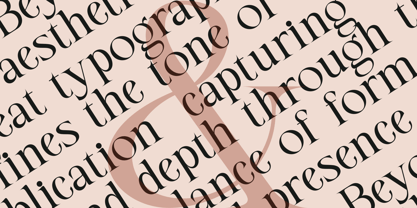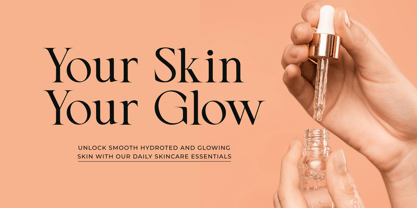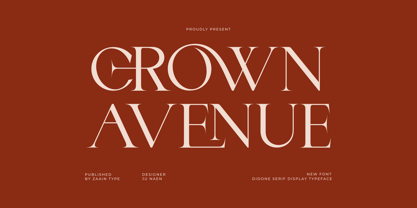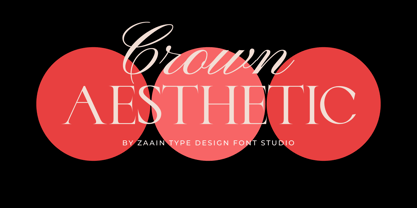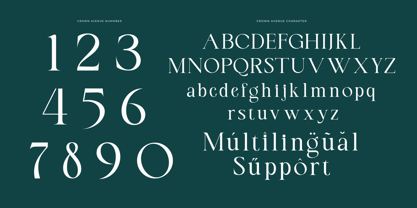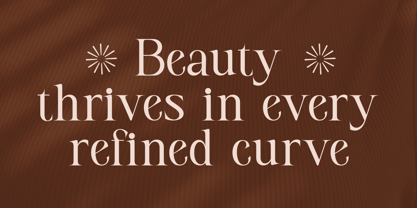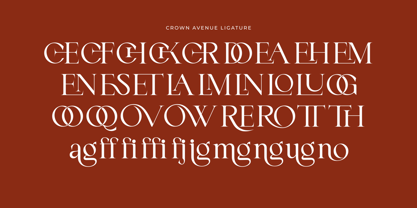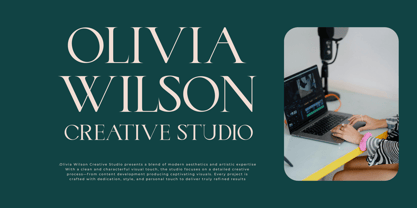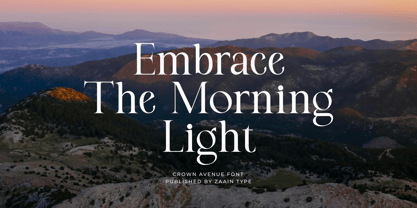
Crown Avenue
by Zaain Type
The Crown Avenue Font Family was designed by Ju Naen and published by Zaain Type. Crown Avenue contains 2 styles and family package options. More about this family
Crown Avenue is an elegant serif font that blends classic nuances with a modern, upscale touch. Each character is crafted with balanced proportions, gentle contrast, and refined serif details, creating a luxurious yet highly readable visual presence. Its typographic elegance is reflected through elongated letterforms, graceful curves, and terminals that evoke a regal feel without being overwhelming. With a sophisticated, editorial atmosphere, Crown Avenue is perfect for premium branding, cosmetic packaging, fashion catalogs, magazine headers, and brand identities seeking an exclusive and prestigious look. This font embodies a “royal chic” aesthetic — a harmony of prestige, finesse, and modernity. In essence, Crown Avenue delivers a typographic experience that feels like a high-end boulevard: stylish, confident, and gleaming in its simplicity